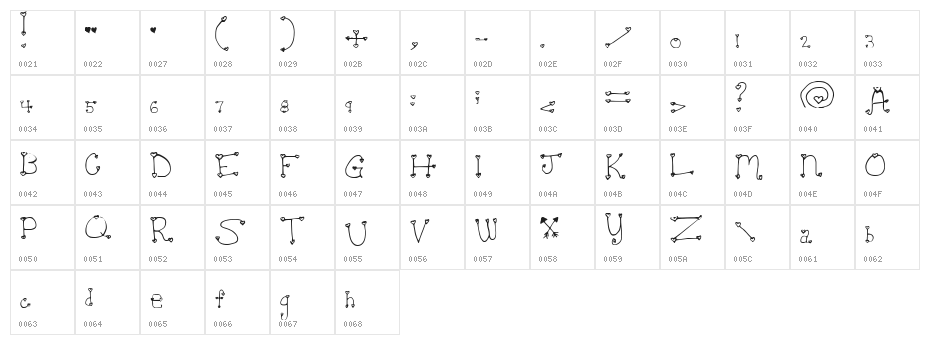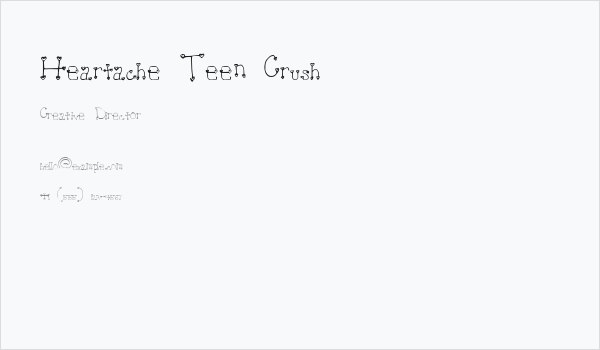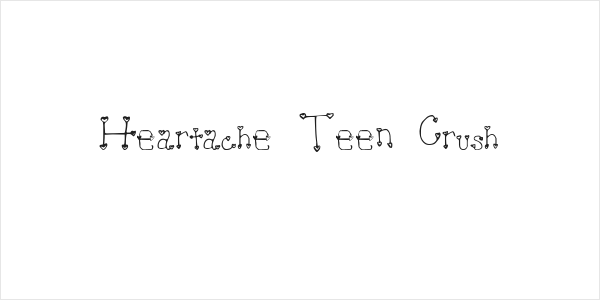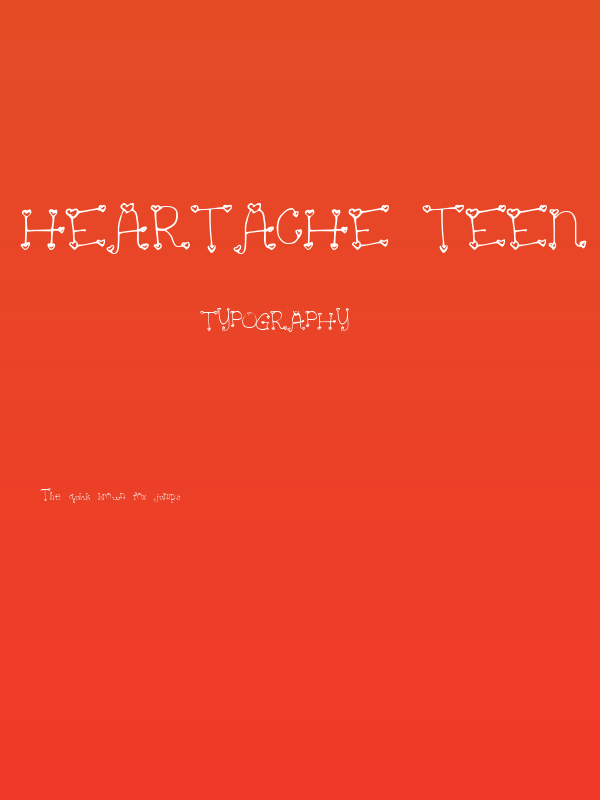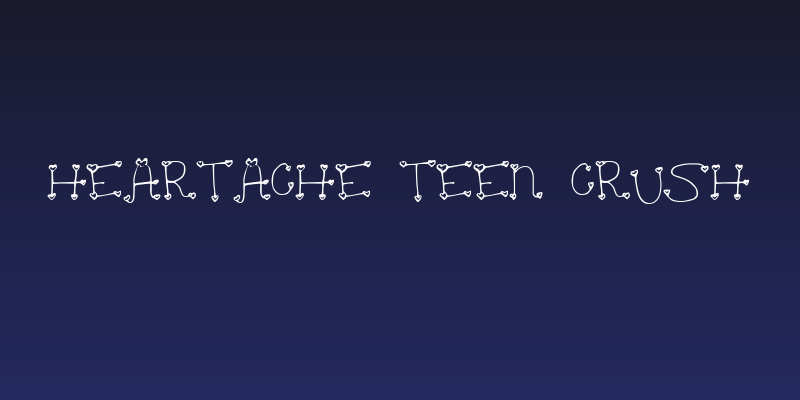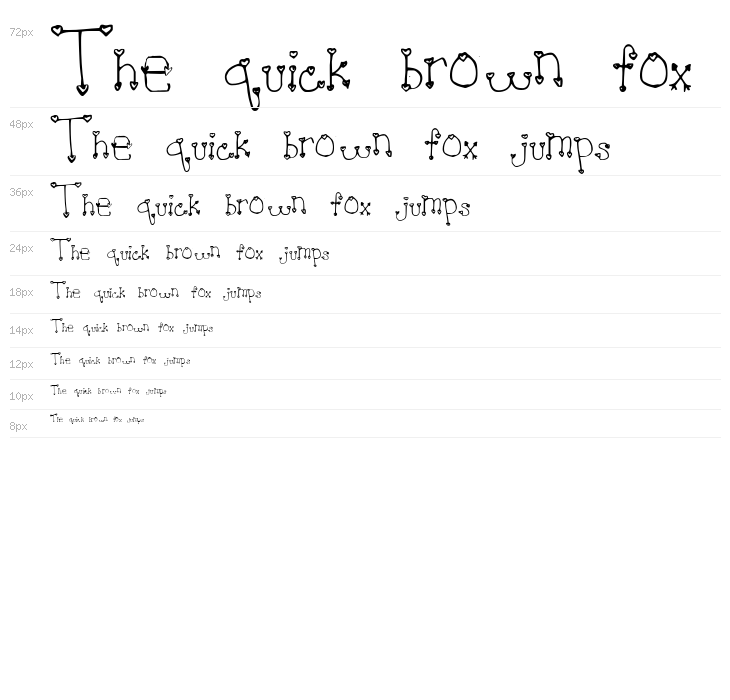
Heartache Teen Crush Font
This playful and whimsical font features a unique design where each character is adorned with heart motifs, creating a sense of youthful romance and charm. The letters are crafted with a hand-drawn aesthetic, giving them a casual and approachable feel. The uppercase and lowercase letters maintain a consistent style, with rounded edges and a slightly irregular form that adds to the font's playful nature. Numbers and special characters are also included, each incorporating the heart theme in a creative way. This font is perfect for projects that aim to convey a sense of fun, love, or nostalgia, making it ideal for invitations, greeting cards, or any design that seeks to capture the essence of youthful affection.
Overall StyleWhimsical, Playful
Use CaseHeadlines, Logos, Invitations
Proposed ProjectsIdeal for greeting cards, invitations, romantic-themed designs, and playful branding projects.